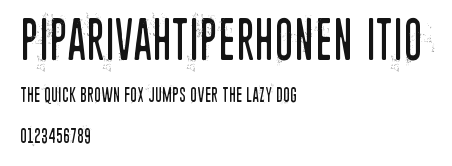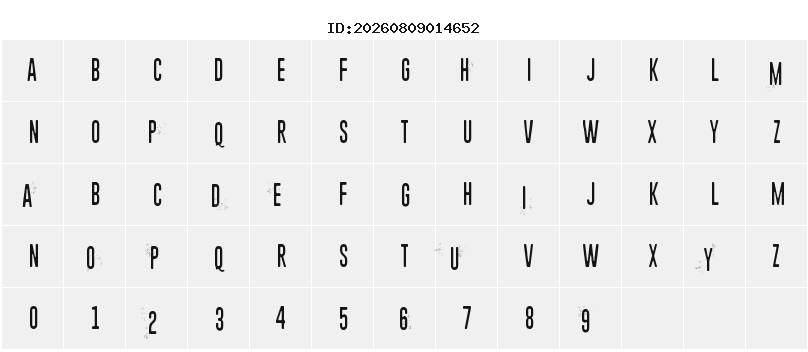
Piparivahtiperhonen Itio Preview
• Font Name: Piparivahtiperhonen Itio
• Full Font Name: Piparivahtiperhonen Itio
About Piparivahtiperhonen Itio.ttf
Piparivahtiperhonen Itio.ttf is a modern, elegant sans-serif font designed for ultimate readability and visual harmony. Perfect for branding, headlines, web design, and print materials.